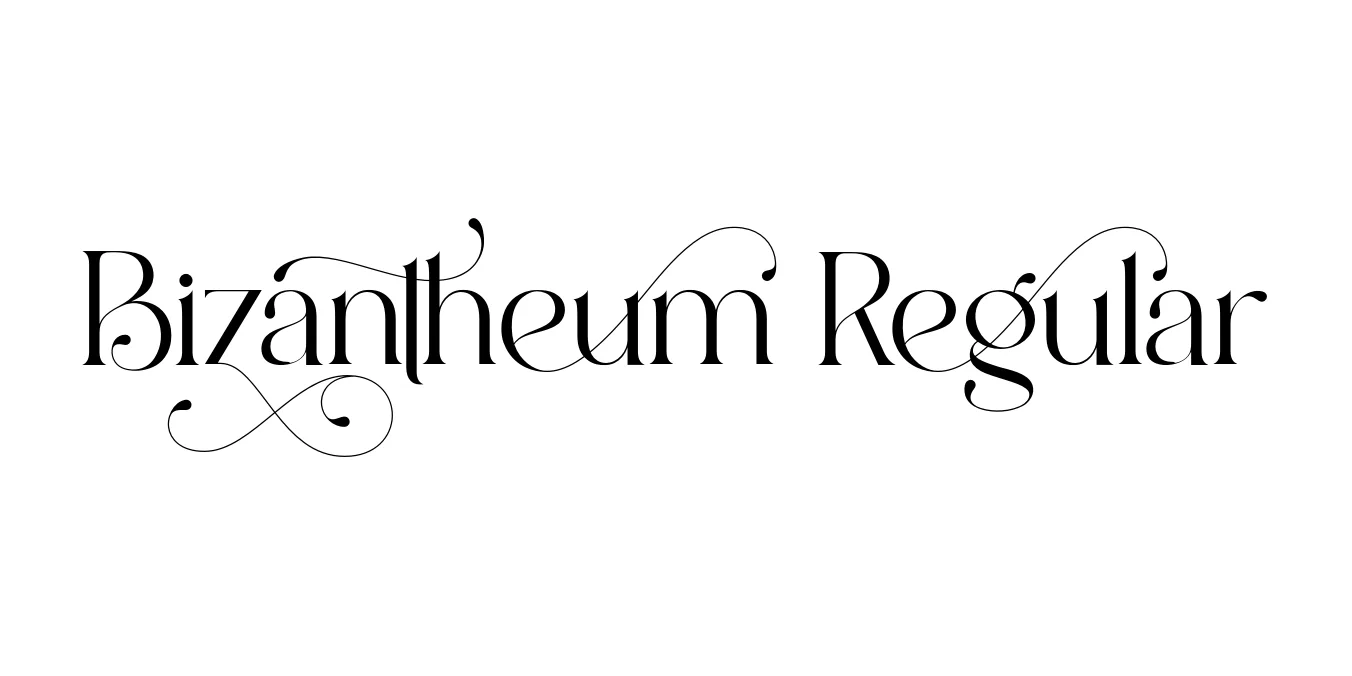
Bizantheum Regular
Designed by Dharmas Studio
| Font Name | Bizantheum |
| Category | Display Serif |
| Designer | Dharmas Studio |
Bizantheum Regular is an elegant and sophisticated display typeface inspired by the intricate aesthetics of the Victorian era and medieval craftsmanship. Developed by Dharmas Studio, this font features sharp serifs, elongated terminals, and a majestic presence that commands attention in any layout. Its design strikes a perfect balance between vintage tradition and modern digital precision, making it a standout choice for high-end branding projects and decorative typography.
The font is particularly effective when used for decorative titling and ornamental layouts where a sense of history is required. With its unique character set and rhythmic flow, Bizantheum Regular excels in contexts where a sense of heritage, luxury, or mystery is needed. It provides a timeless appeal that bridges the gap between classic calligraphic roots and contemporary graphic design needs, ensuring your creative work remains both distinctive and professional.
Bizantheum Regular Best Uses
Perfect for creating sophisticated and high-end brand identities with a heritage feel.
Ideal for magazine covers, dramatic headers, and artistic article titles.
Enhances luxury product packaging for wine, perfumes, or artisanal goods.
Great for wedding stationery or formal event posters requiring a touch of class.